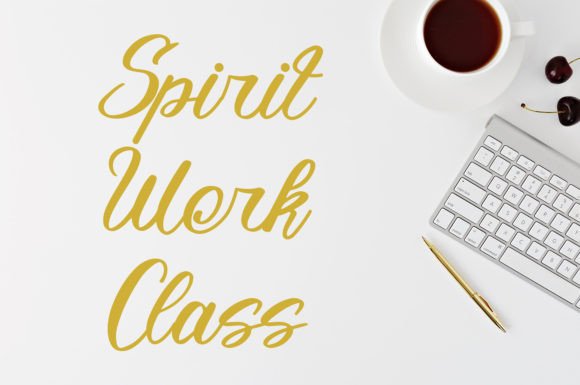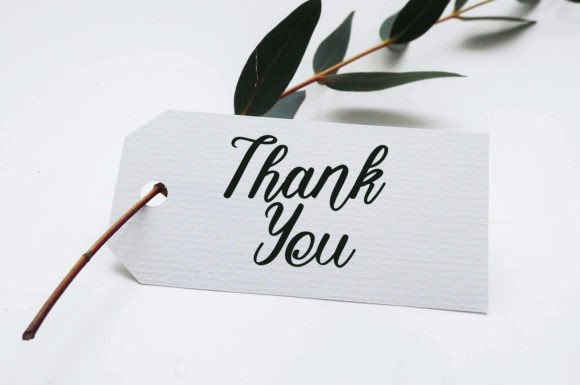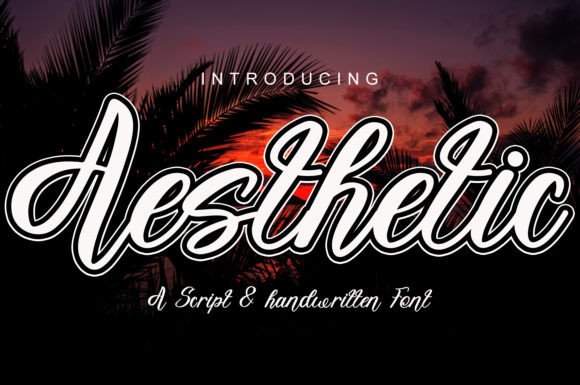
The Beauty of Aesthetic Fonts: Elevate Your Designs with Elegance
In the world of typography, aesthetic fonts have gained significant attention for their unique and visually appealing characteristics. These script-type fonts are carefully crafted to perfection, with a keen eye on every curve and distance between letters. If you’re a designer, crafter, or simply someone who appreciates beautiful typography, you’re in for a treat. In this article, we’ll explore the world of aesthetic fonts, their uses, and how you can leverage them to elevate your designs.
What are Aesthetic Fonts?
An aesthetic font is a type of script font that is designed to be visually stunning. Each letter is carefully crafted to ensure that the font is harmonious, elegant, and sophisticated. Aesthetic fonts are often used in designs where a touch of elegance and refinement is desired, such as wedding invitations, luxury brands, and high-end product packaging.
Characteristics of Aesthetic Fonts
Aesthetic fonts are known for their distinctive characteristics, which include:
- Flowing curves: Aesthetic fonts feature smooth, flowing curves that connect letters in a beautiful and harmonious way.
- Attention to detail: Every aspect of an aesthetic font is carefully considered, from the distance between letters to the subtle variations in line width.
- Elegant lines: Aesthetic fonts often feature elegant lines, refined serifs, and beautiful swashes.
Uses of Aesthetic Fonts
Aesthetic fonts are versatile and can be used in a variety of design projects, including:
- Wedding invitations: Aesthetic fonts are perfect for creating beautiful, elegant wedding invitations that set the tone for a sophisticated and refined celebration.
- T-shirt printing: Aesthetic fonts can add a touch of style and elegance to t-shirt designs, making them perfect for fashion brands and designers.
- Branding: Aesthetic fonts can be used to create stunning brand identities, including logos, business cards, and letterheads.
- Stationery: Aesthetic fonts can be used to create beautiful stationery, including notebooks, journals, and greeting cards.
Tips for Using Aesthetic Fonts
Here are some tips for using aesthetic fonts in your designs:
- Pair with simple fonts: Pair aesthetic fonts with simple, clean fonts to create a beautiful contrast and add visual interest to your design.
- Use for headlines: Aesthetic fonts are perfect for headlines and titles, where their elegant curves and lines can be showcased.
- Experiment with colors: Aesthetic fonts can be used with a variety of colors, from metallic and pastel shades to bold and bright hues.
| Font Name | Aesthetic Font |
| Author | Choirulcreator |
Aesthetic fonts are a beautiful and elegant way to add a touch of sophistication to your designs. With their flowing curves, attention to detail, and elegant lines, these fonts are perfect for designers, crafters, and anyone who appreciates beautiful typography. Whether you’re creating wedding invitations, t-shirt designs, or branding materials, aesthetic fonts are sure to elevate your designs and leave a lasting impression.